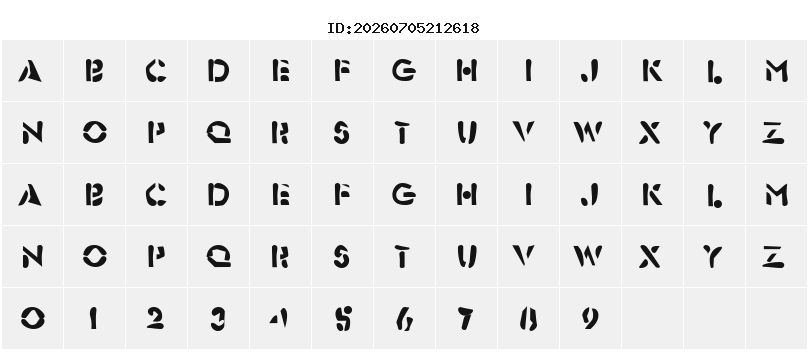
• Font Name: Dirty25
• Designer: SoftMaker Software GmbH
About Dirty25.ttf
Dirty25.ttf is a modern, elegant sans-serif font designed for ultimate readability and visual harmony. Perfect for branding, headlines, web design, and print materials.